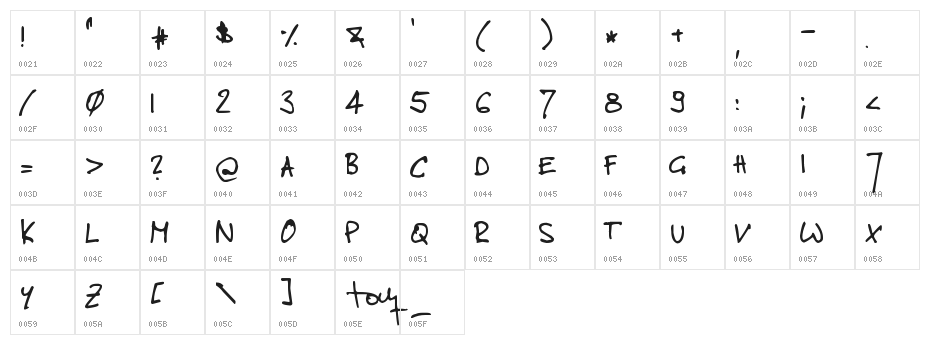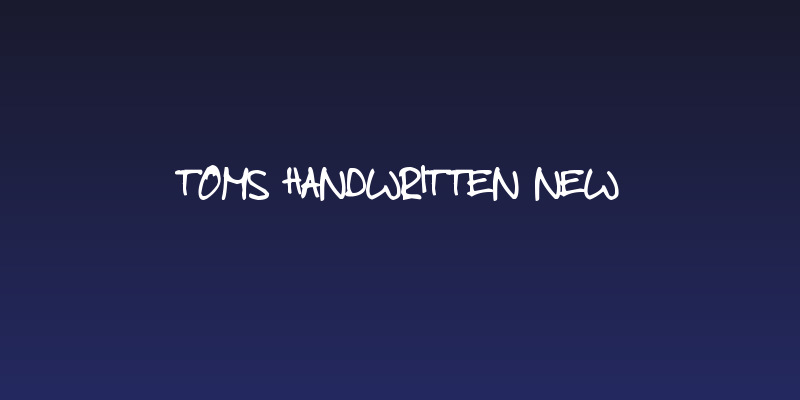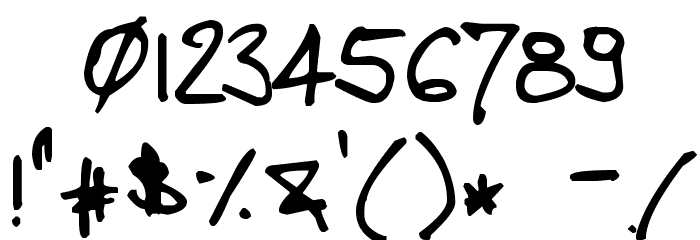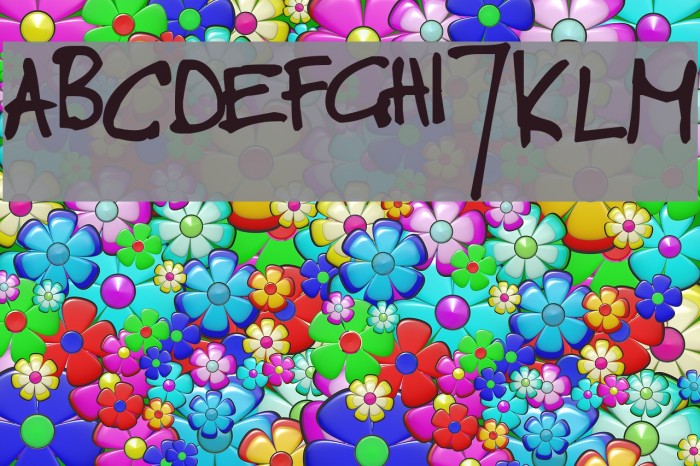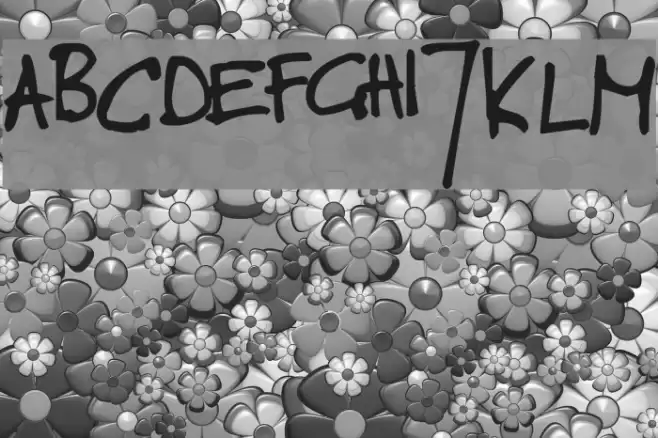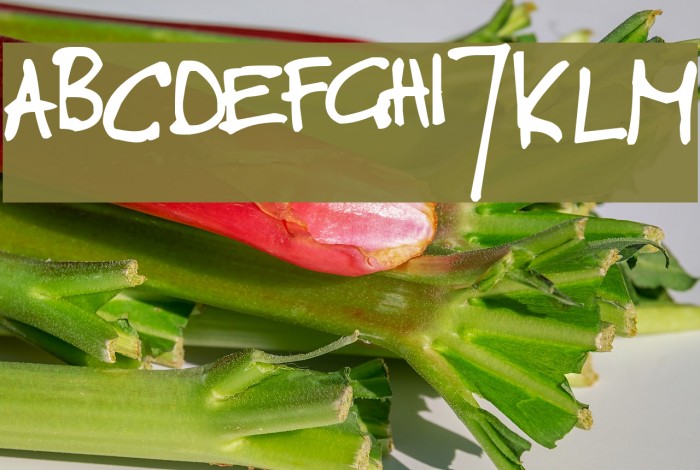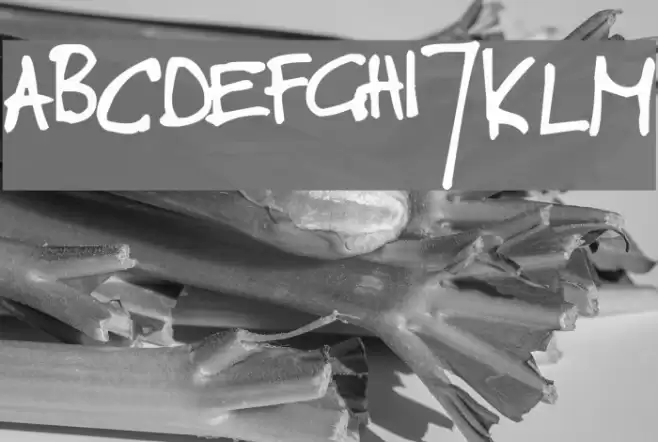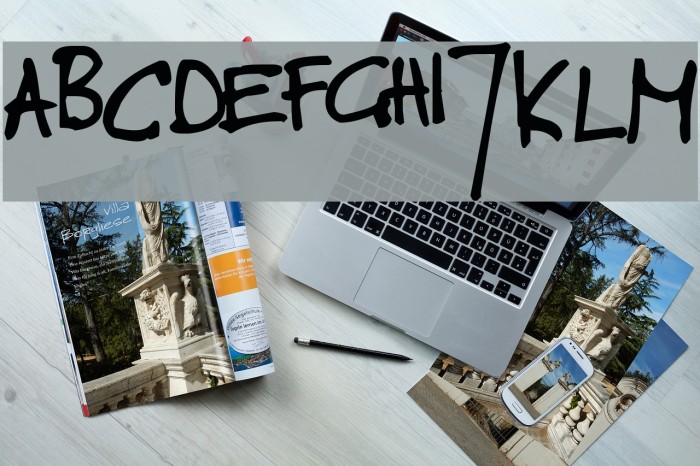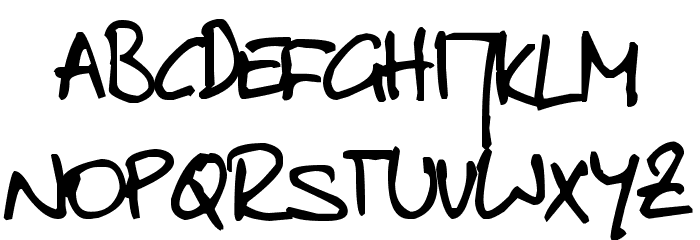
toms handwritten new Font
toms handwritten new Description
This font exudes a casual and personal touch, reminiscent of authentic handwriting. The letters are bold and slightly irregular, giving it a dynamic and lively appearance. The strokes are thick and have a consistent weight, adding to the boldness of the style. The characters are slightly slanted, enhancing the handwritten feel. The spacing between characters is normal, allowing for easy readability while maintaining the font's informal charm. This style is perfect for projects that require a personal and approachable aesthetic.
| Overall Style | Casual |
| Use Case | Headlines, Logos, Informal Text |
| Proposed Projects | Ideal for personal notes, greeting cards, informal invitations, and creative projects that require a personal touch. |